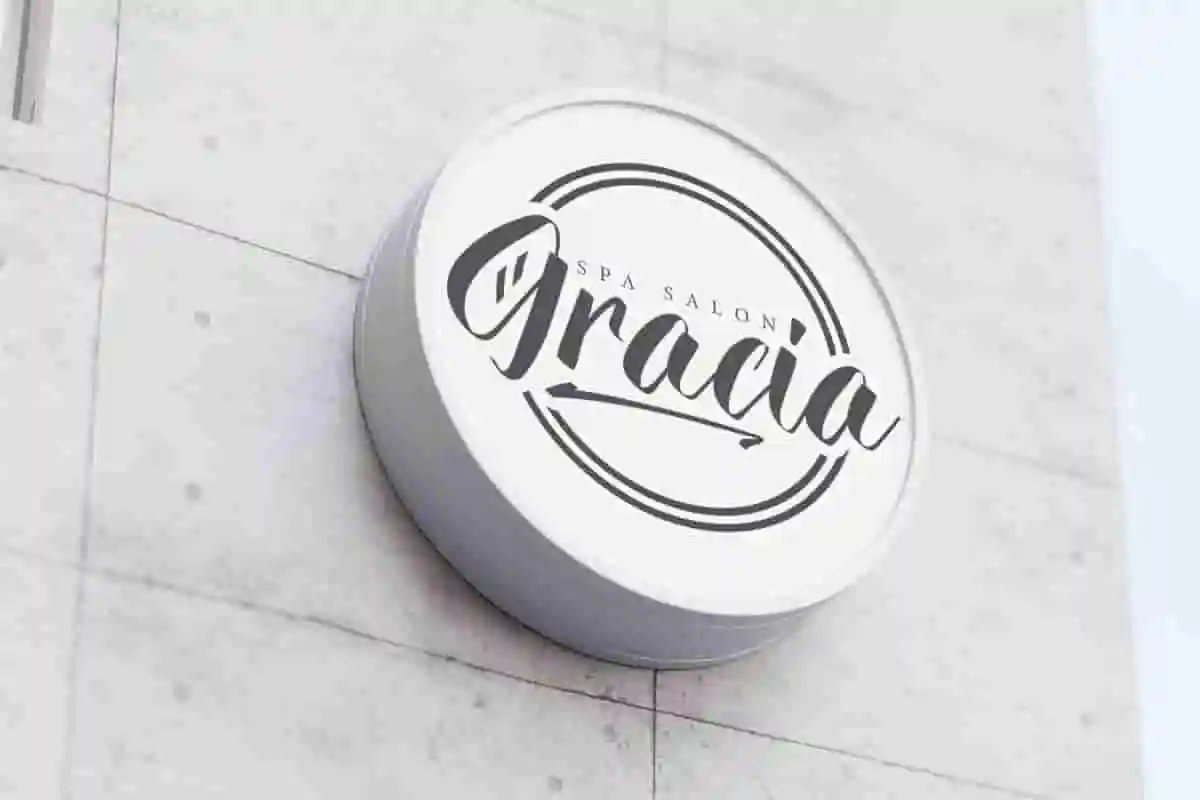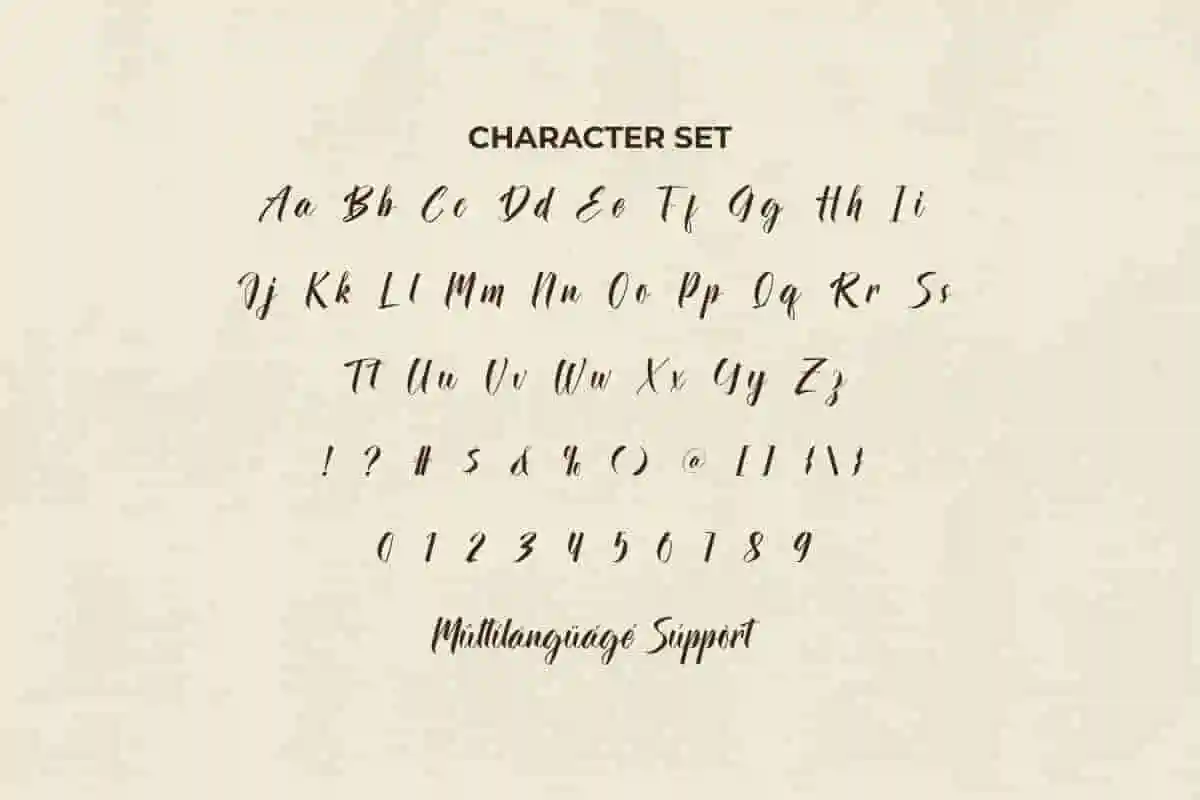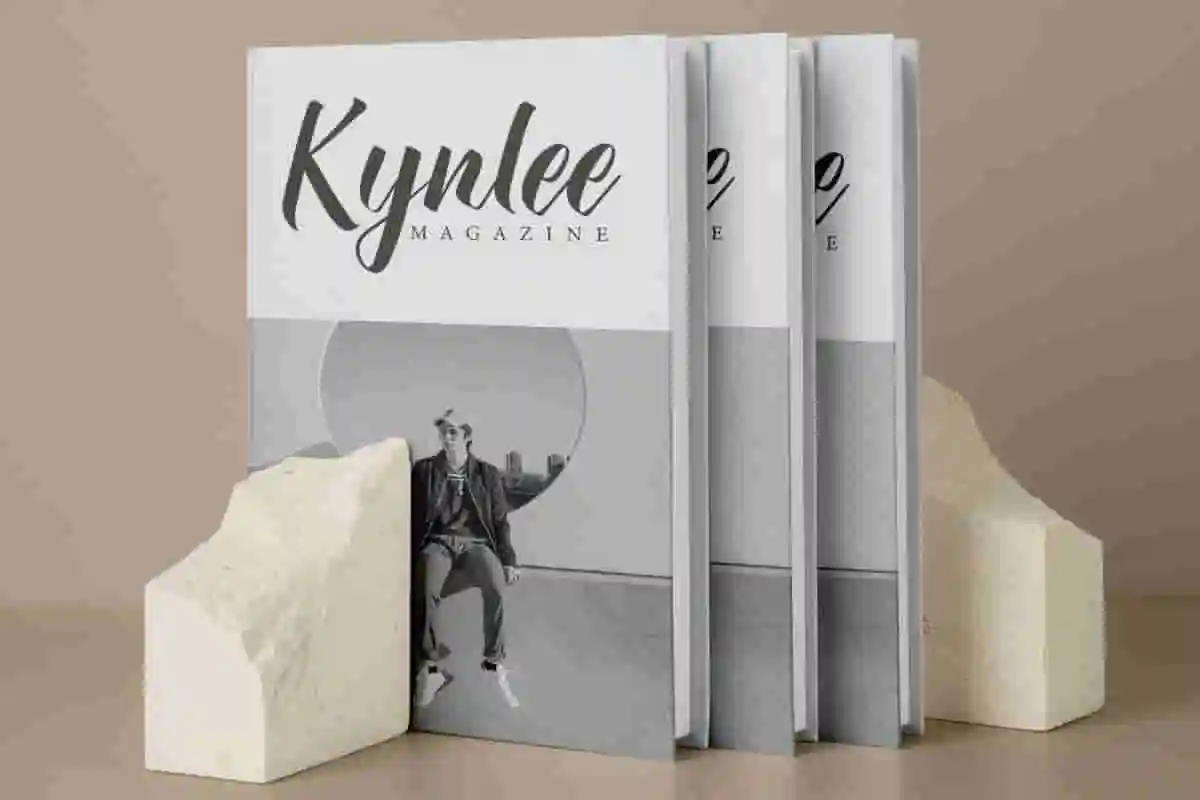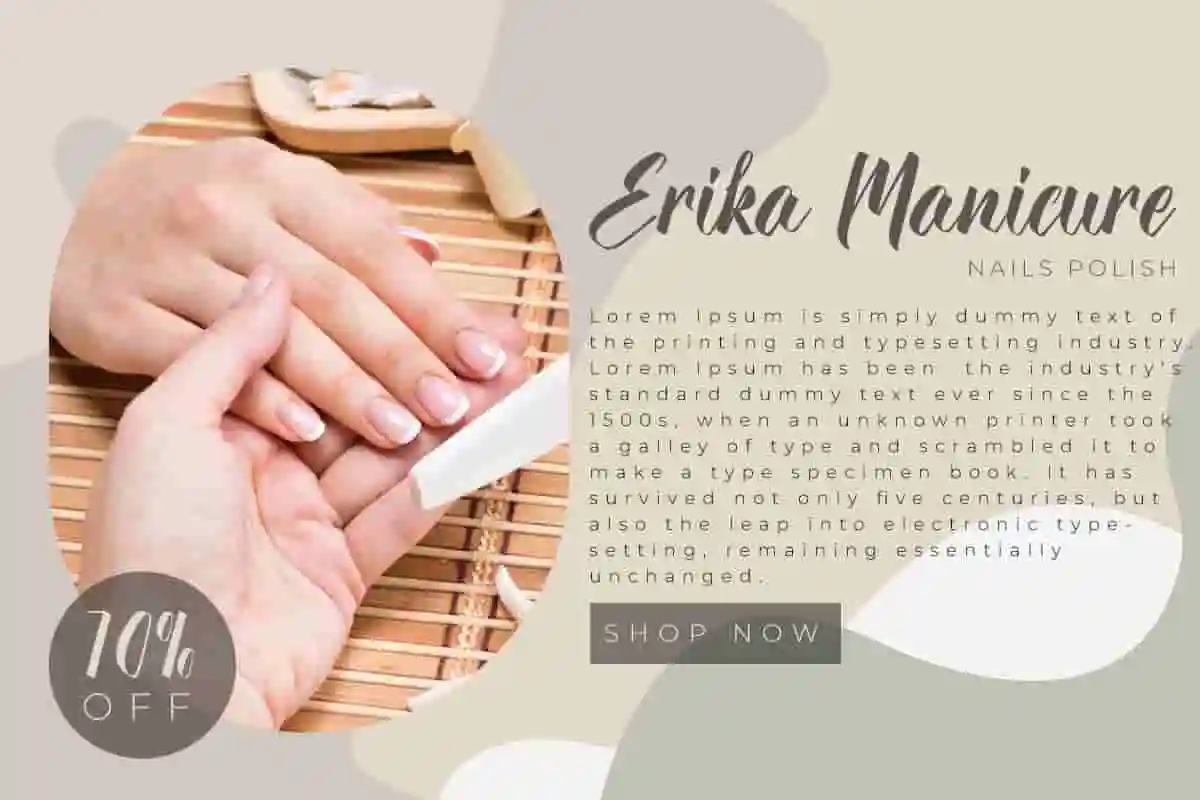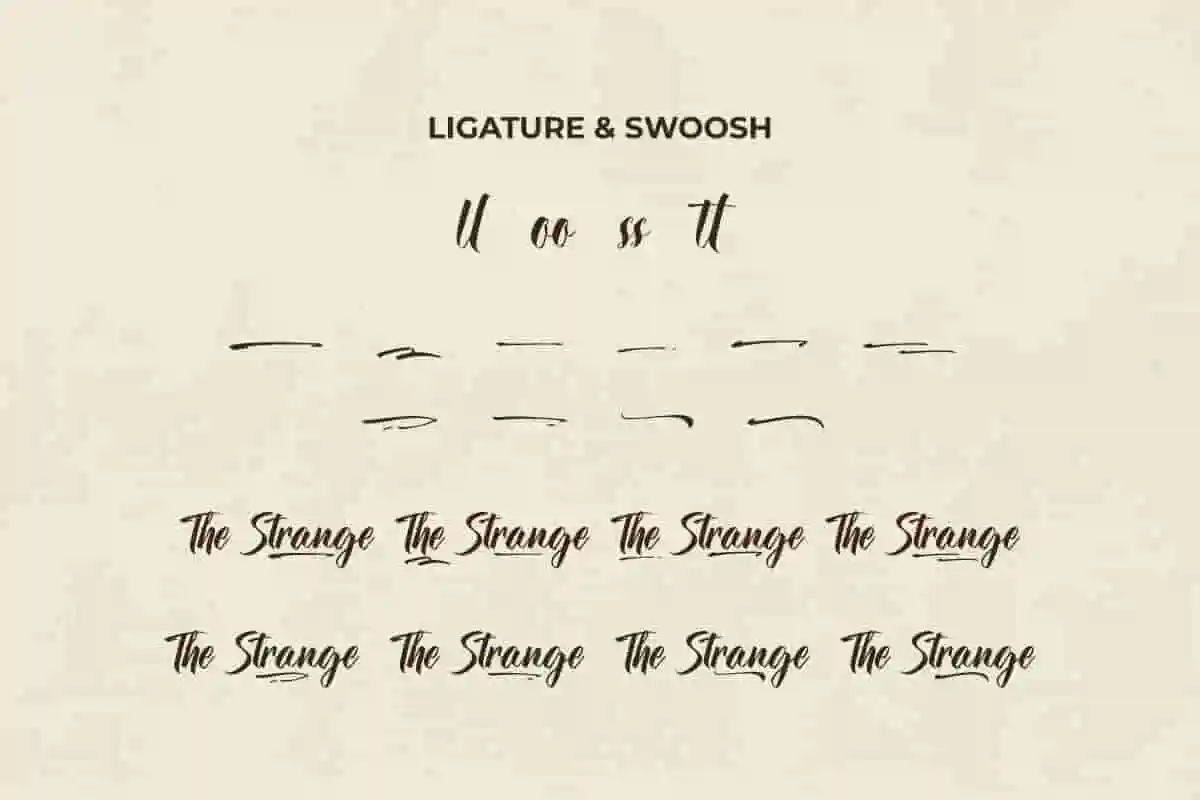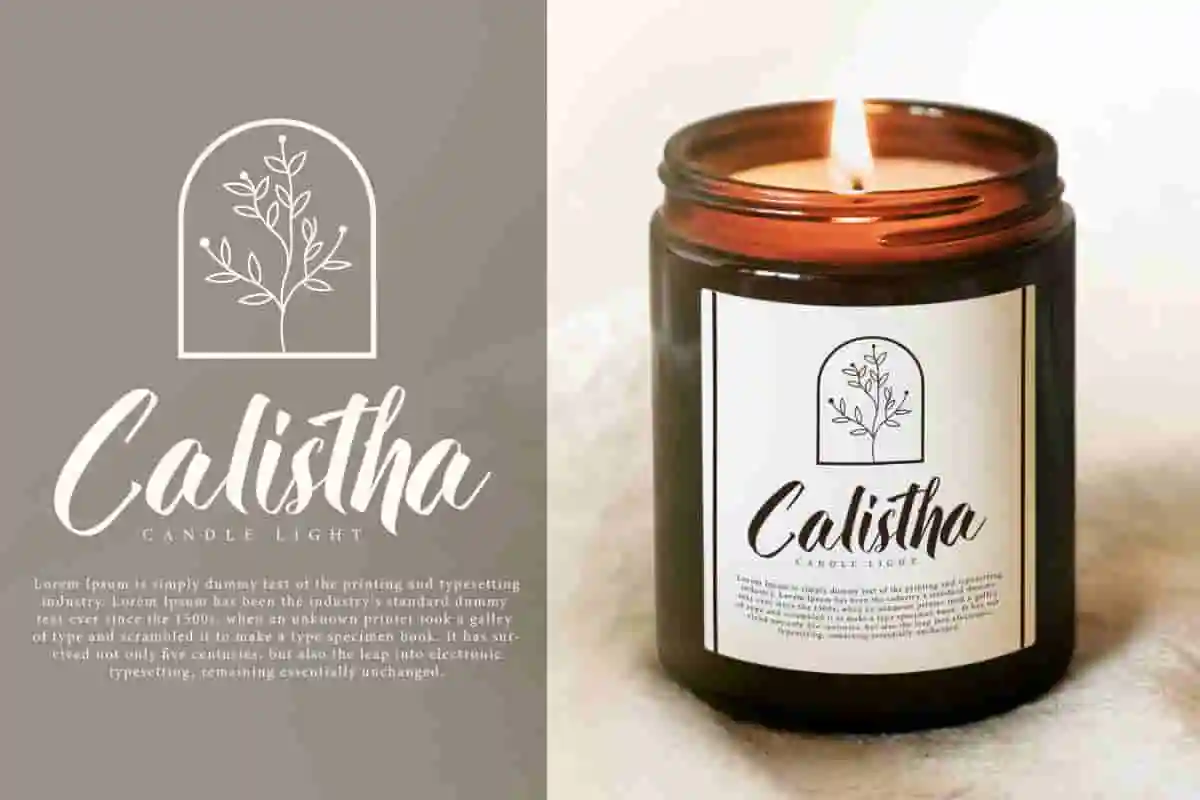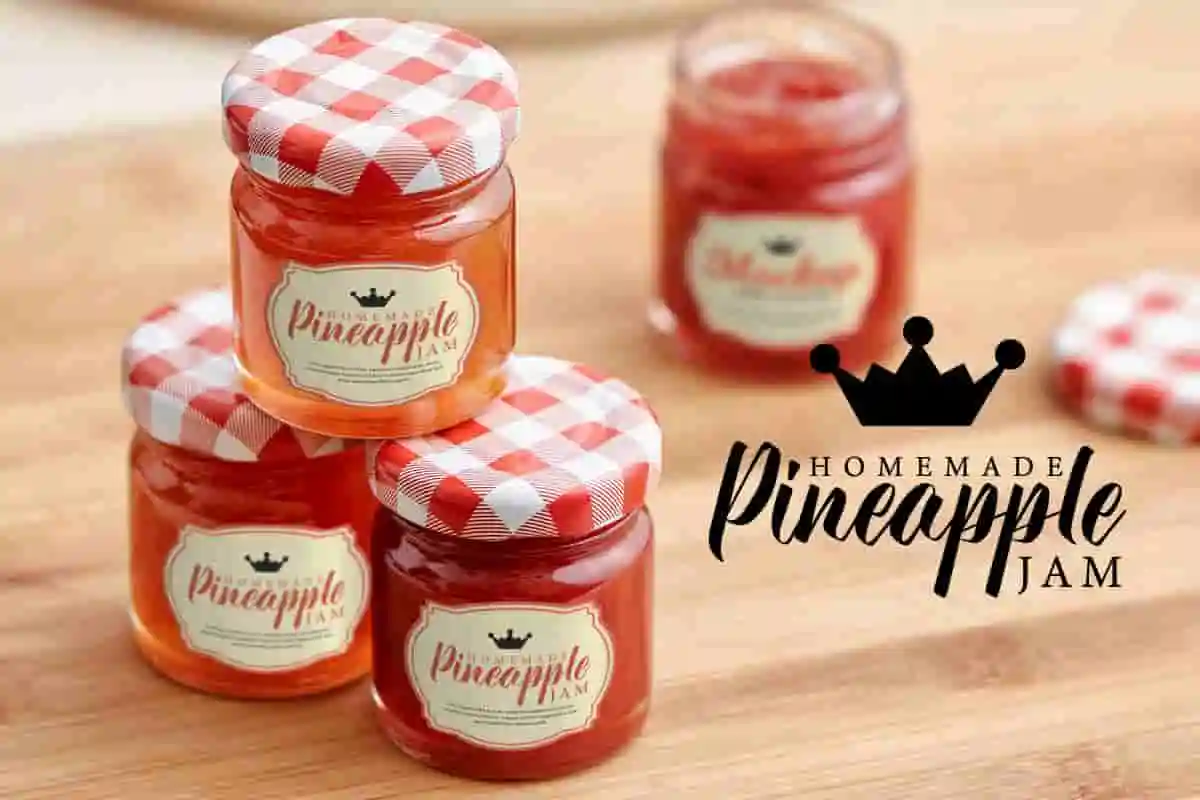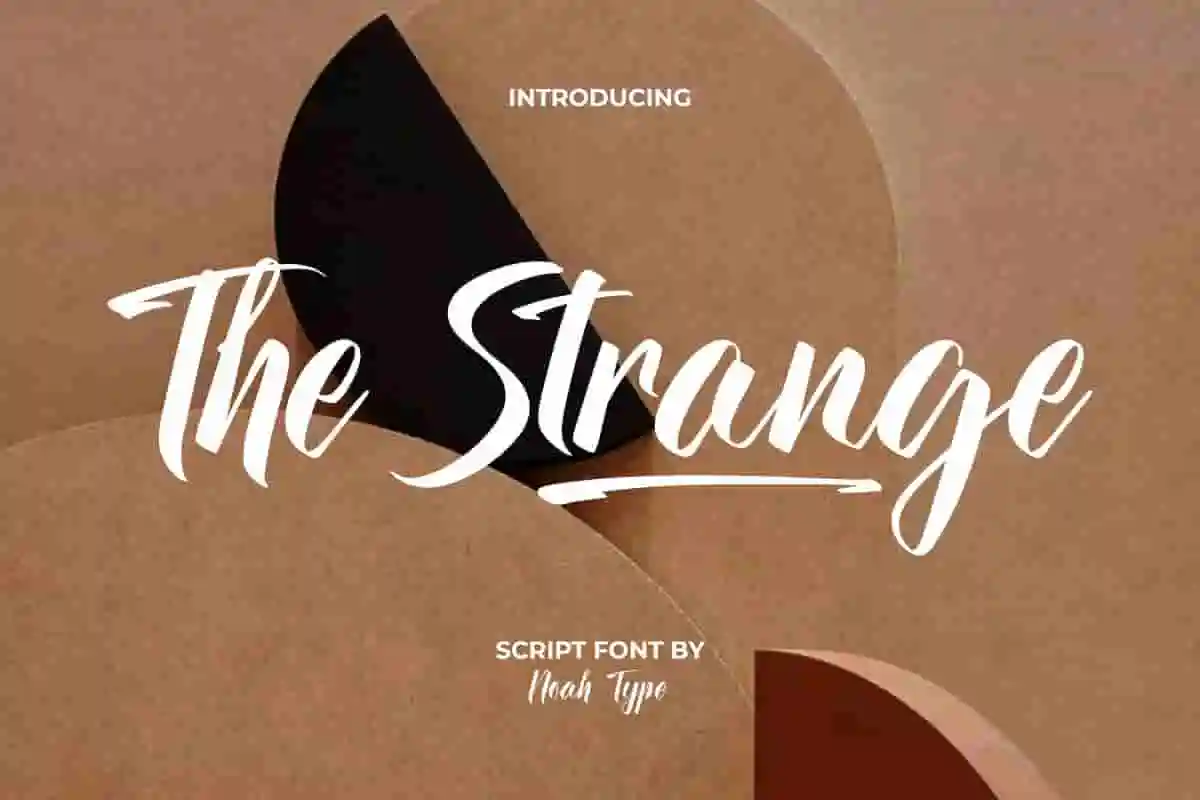
The Strange Font
The Strange Font is a brush calligraphic script font with classic style by NoahType Studio. This font is made of bold lines which looks good for a stylish design, such as business card, custom design, invitation, label, magazine catalog, menu, poster, product packaging, quote, signage, title, watermark, website, and more!
The Strange Font includes full set of Uppercase and Lowercase Basic Characters, Numerals, and Punctuation. It also contain Ligature and Swoosh characters that will add perfection and making it suitable for many industries, such as cosmetic, fashion, florist, furniture, interior design, perfume, skincare, spa and salon, wedding or event organizer, etc.